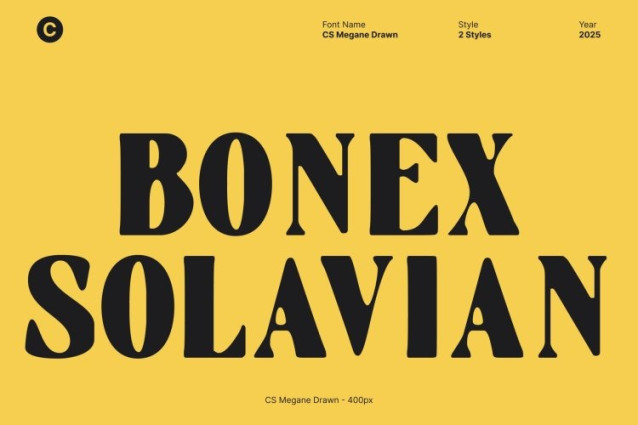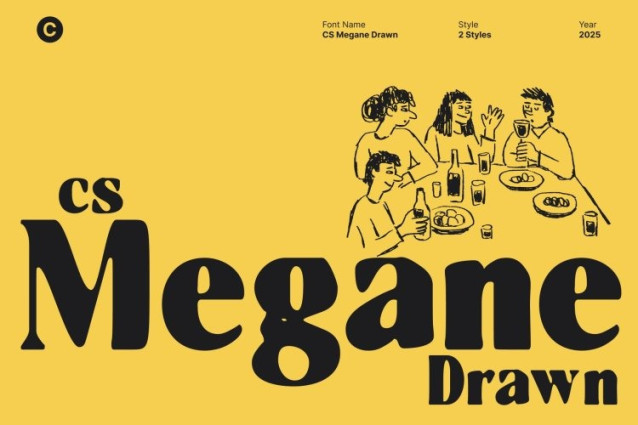
CS Megane Drawn Font
CS Megane Drawn Font This is a bold display font designed to command attention. Its strong, confident strokes deliver immediate visual presence, making it perfect for headlines, posters, and impactful branding. Every letter is carefully shaped to project authority and energy, ensuring your designs make a statement from the first glance.
Soft Textured Finish for Expressive Character
Enhancing its bold form, features a subtle textured effect that adds depth, warmth, and personality. The soft, hand-crafted feel balances the font’s strong weight, creating a harmonious combination of power and approachability. This texture gives every design an artistic, distinctive edge that stands out in any creative project.
Versatile for Bold Headlines and Display Designs
This font thrives in environments that require high visibility and strong impact. Its heavy weight ensures readability from a distance, while the textured details make it visually engaging for closer inspection. This makes it ideal for posters, promotional materials, social media graphics, and attention-grabbing editorial layouts.
Perfect for Branding, Posters, and Creative Impact
Whether used for dynamic branding, bold headlines, or striking display projects, delivers a confident and expressive visual voice. Its combination of weight, presence, and soft texture ensures your designs feel powerful, approachable, and memorable perfect for projects that demand authority with a creative, human touch.